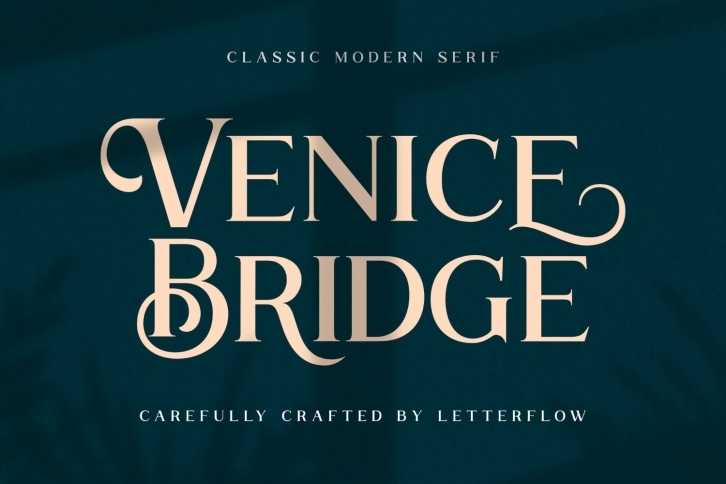
Venice Bridge is a trendy and unique font with an authentic style. It was designed by Letterflow and it's a great choice for creative people who need such a font. It was released on April 28, 2021 and the file size is 2.86 MB. Venice Bridge will add an organic vibe to any design idea!